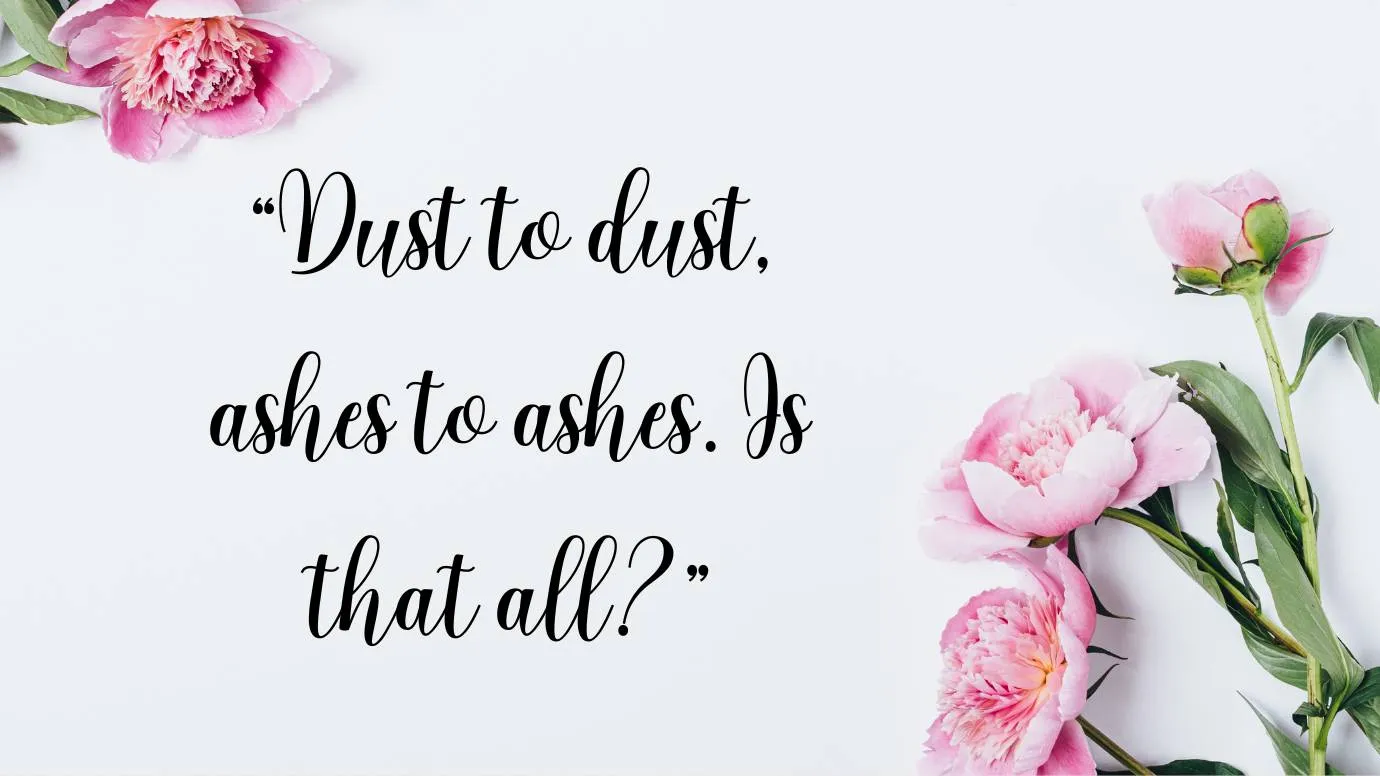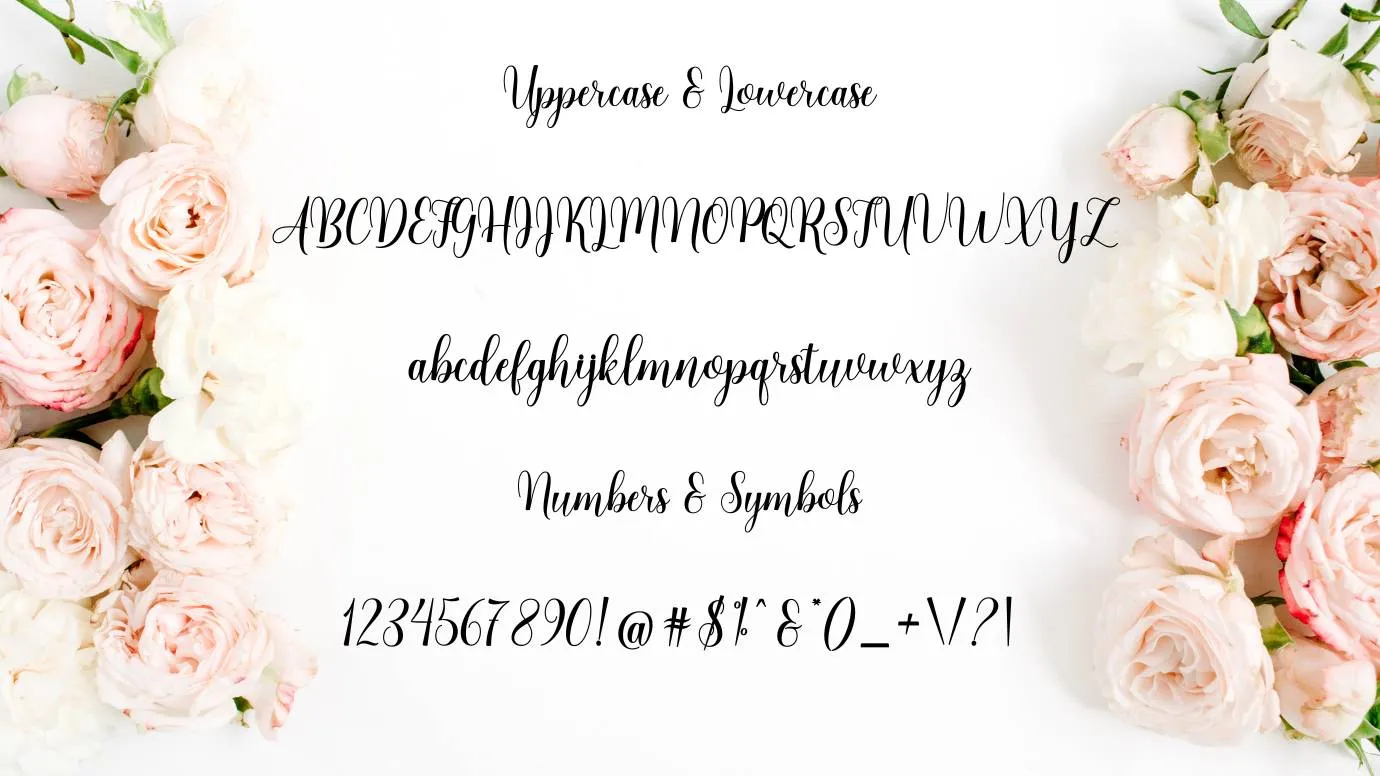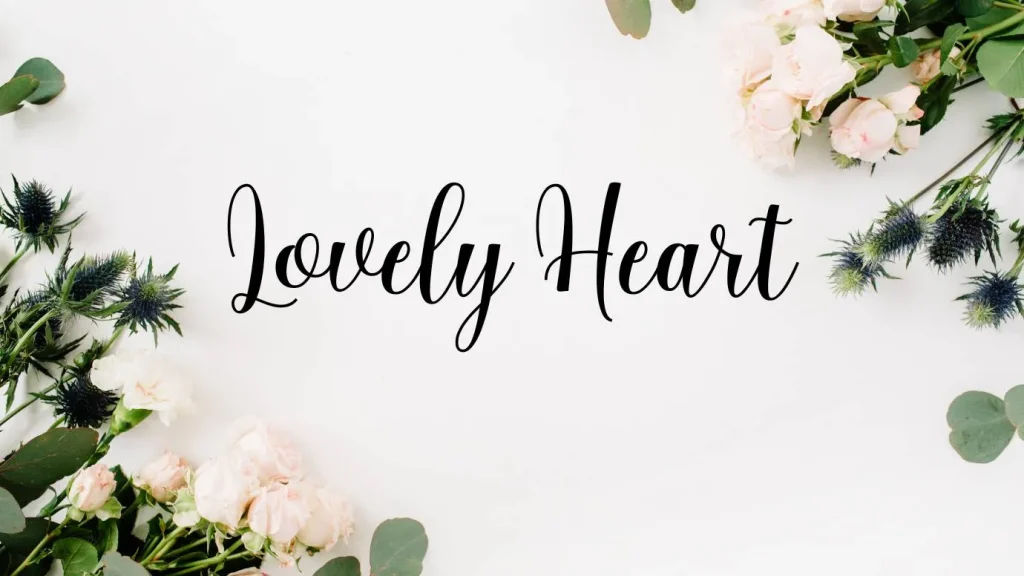
Reka Safriani is the designer of the Lovely Heart Font. It is the script text style. Due to its advanced and brilliant features, it can be used for a variety of purposes.
This font is frequently used mostly for branding and advertisement enterprises. Video game players as well as other people who value its unique appearance are also fans of this style.
Usage of Lovely Heart Font
This style allows you to create graphic text, logos for websites, template designs, and much more. Using this typeface makes it easy to create readable text, notes, articles, and assignments. Posters and banners are designed beautifully.
Display designs and bold content can be created with this stunning piece. Text designs can look more stylish with this typeface. It comes in a range of styles, making it suitable for a variety of designs. Designers can create text graphics and name designs by using them.
For usage in programming, transcriptions, word processing, worksheets, etc, the font type is ideal. For any task that needs an extreme typeface, this design would benefit greatly from using the typeface.
Uppercase and Lowercase Characters
What type of style is the Lovely Heart typeface?
Lovely Heart is a contemporary script typeface. It highlights the unique textual styles. This family moreover highlighted numerous ligatures and substitutions.
What’s the Closest typeface to Lovely Heart texture?
Right signature font is very close to the Lovely Heart typeface. These fonts will look good together.